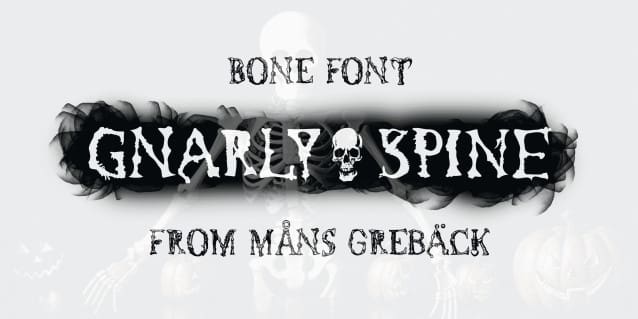
Gnarly Spine Font
Gnarly Spine Font invokes a sense of foreboding, promising tales of the macabre and the mysterious.
Use the currency symbol ¤ to make a skull.
Example: haLl¤weEn
Use multiple to make different skulls.
Example: ¤¤¤¤¤Darkness¤¤¤¤